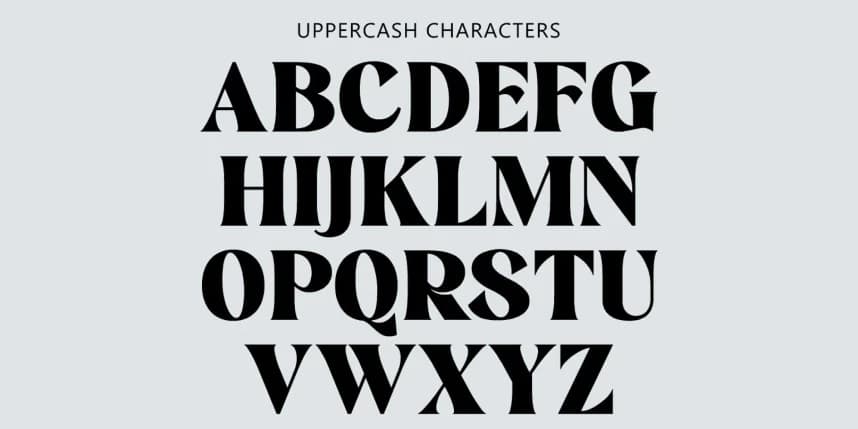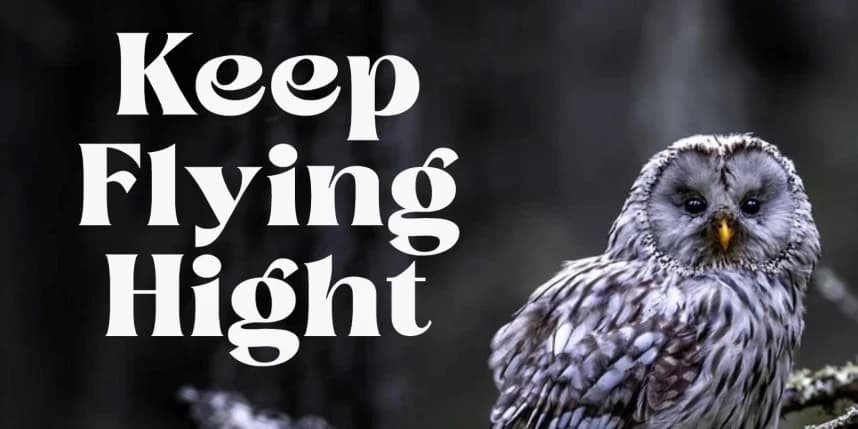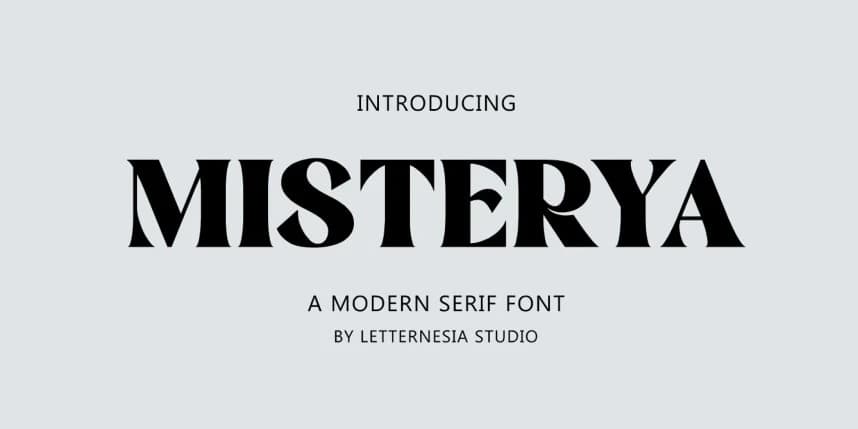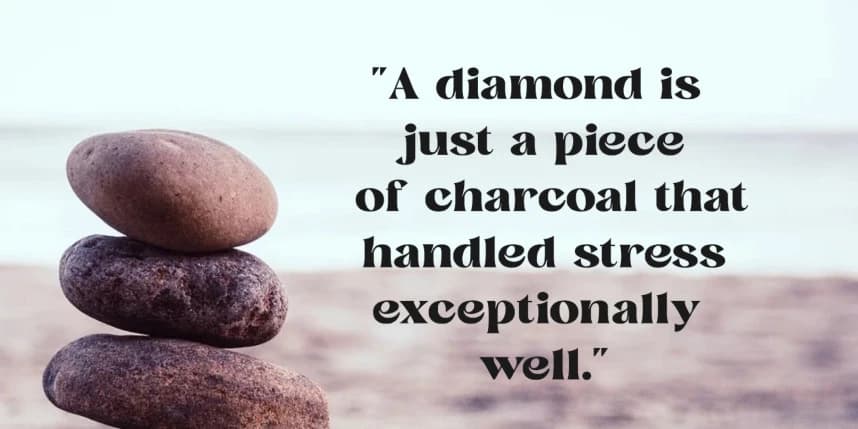
Misterya Font is an elegant serif font that combines timeless sophistication with a touch of contemporary flair. Its well-defined, graceful serifs and carefully crafted letterforms give it a classic yet modern appeal.